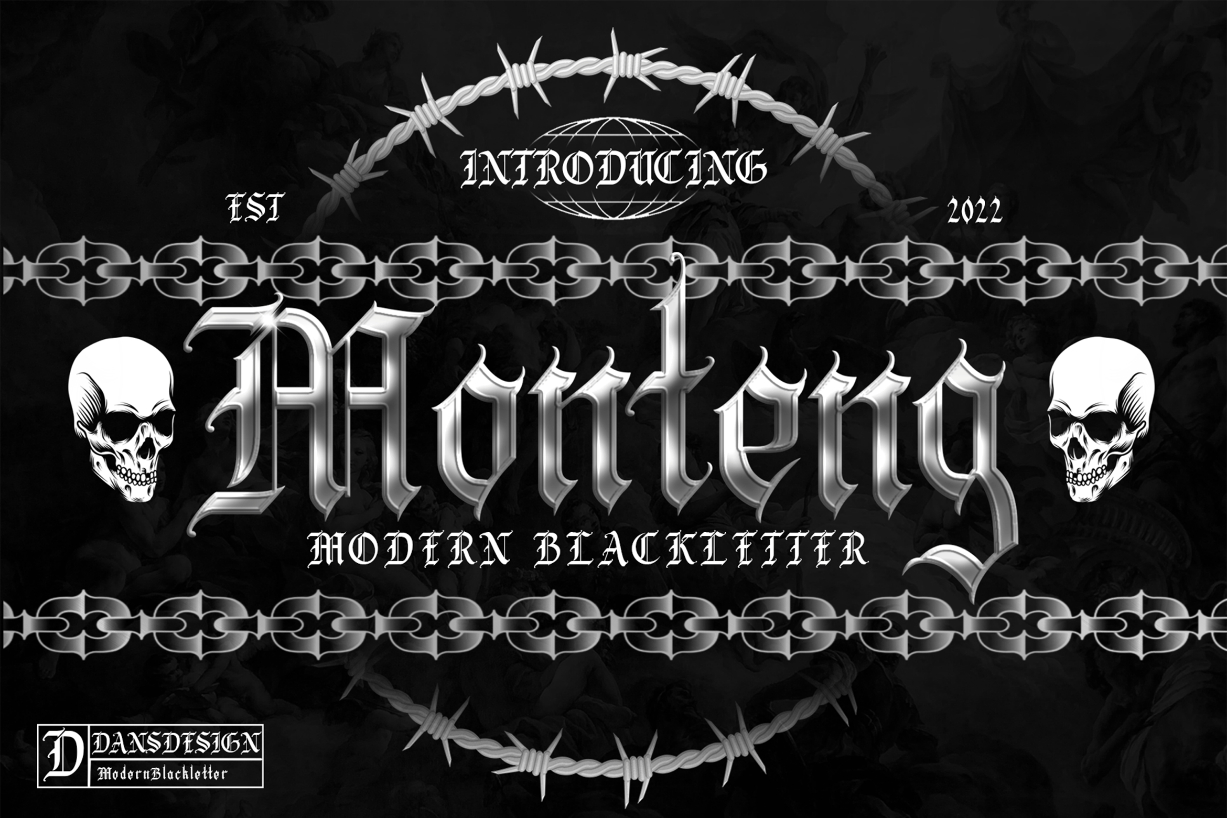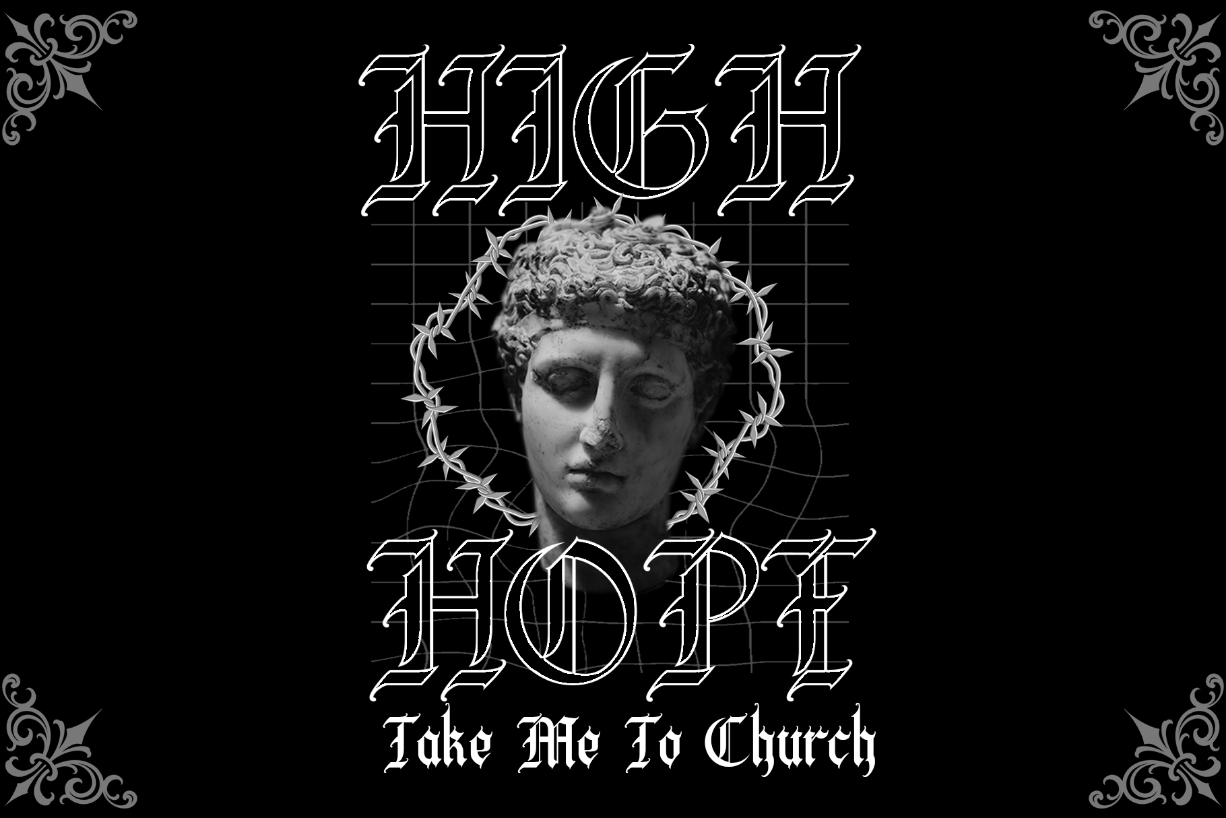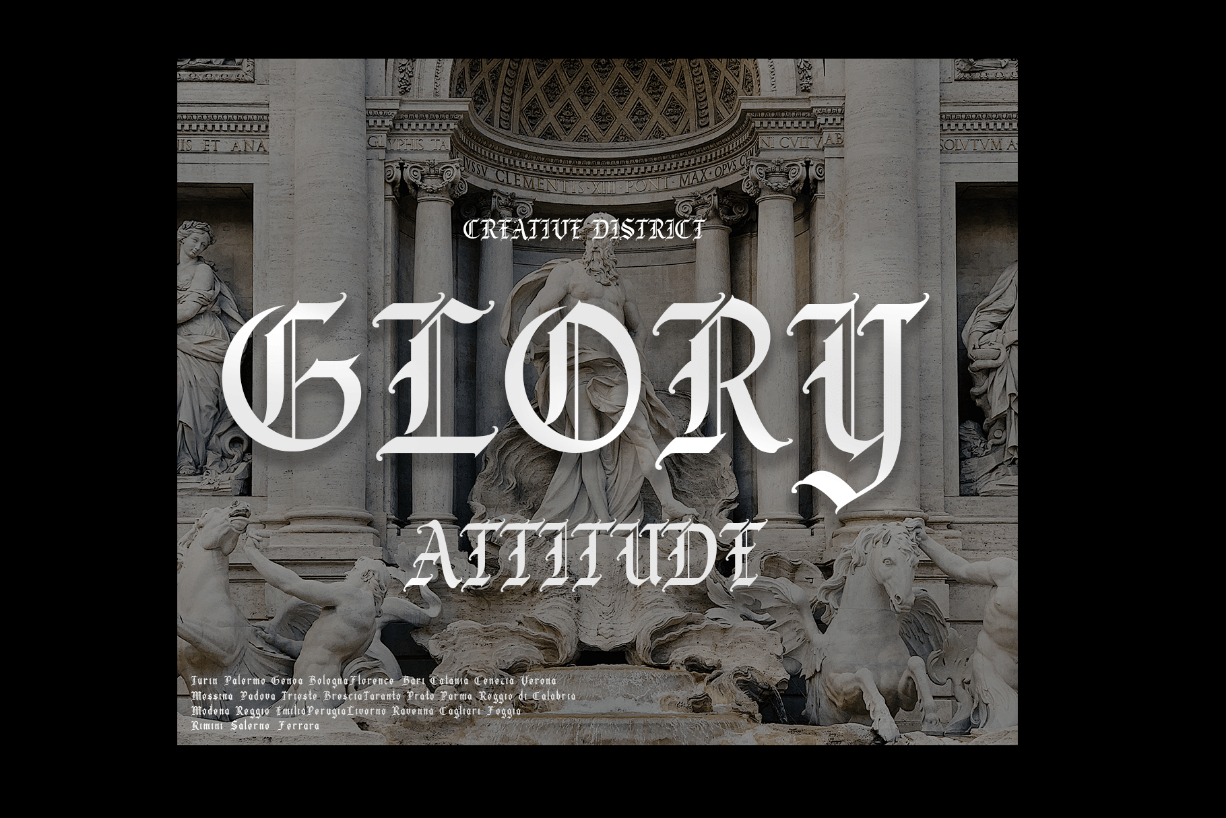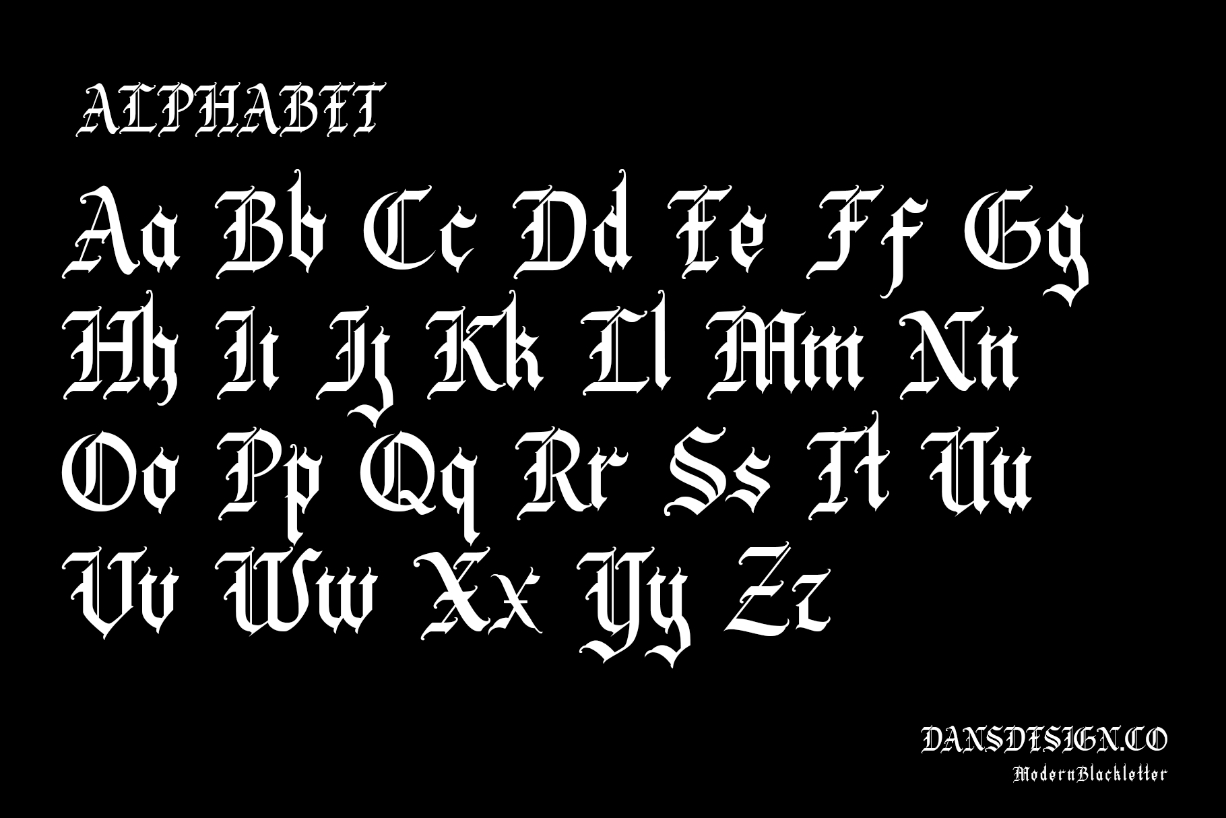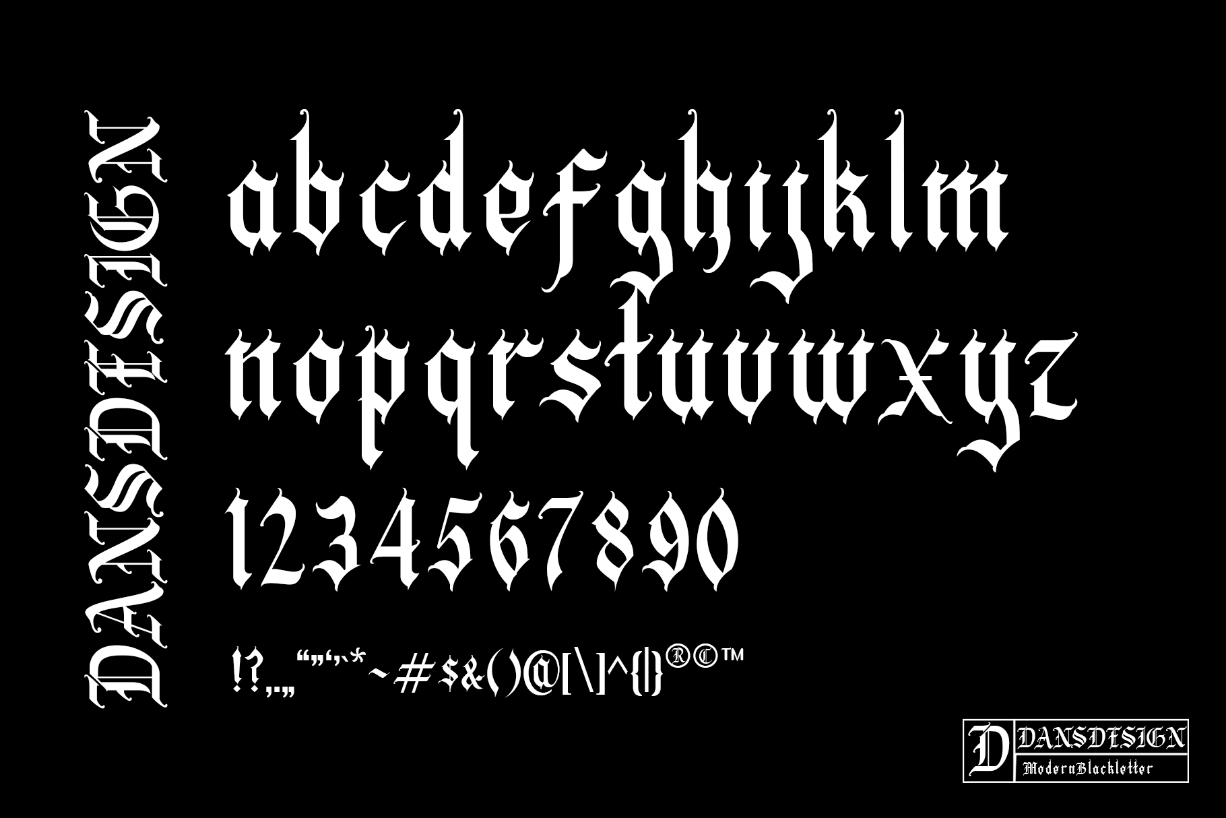
About Monteng Font
Monteng is a distinct, highly detailed, and chic blackletter font. It would make a great choice for exquisite retro-urban designs, tattoo business branding, logos, vintage designs, and more.